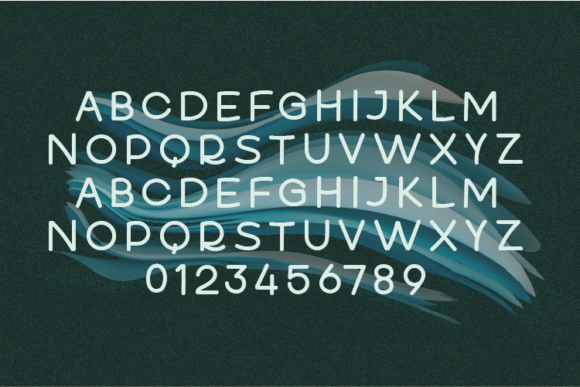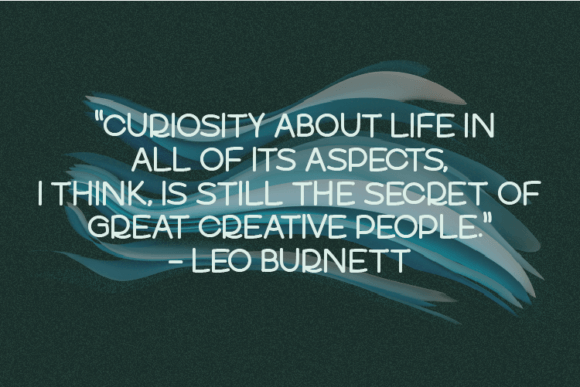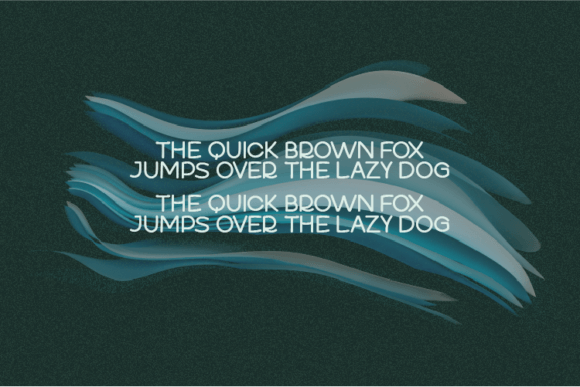
The Demetrius Font: A Unique Sans Serif for Creative Projects
I still remember the frustration of working on a design project, only to hit a roadblock when searching for the perfect font. My client wanted something fresh, yet elegant; something that would make their brand stand out. After hours of scrolling through font libraries, I stumbled upon the Demetrius font. Its unique, natural sans serif design caught my attention, and I knew I had to give it a try.
So, what makes Demetrius special? Here are a few things I love about this font:
- ✨ Unique design: The font’s natural sans serif style is made without changing a single node in each character’s indentation, making it truly one-of-a-kind.
- ✅ Versatile: Perfect for quotes, notes, tees, and any product design, Demetrius is a versatile font that can adapt to various creative projects.
- 💡 Legibility: The font’s clean lines and simple design make it easy to read, even at smaller sizes.
Of course, no font is perfect, and Demetrius has a few quirks:
- 🤔 Limited language support: As with many fonts, Demetrius may not support all languages or special characters.
- ⚠️ Font pairing: While Demetrius is a beautiful font on its own, it may require some experimentation to find the perfect pairing font for your project.
The Story Behind Demetrius
While the true story behind Demetrius remains a mystery, it’s easy to imagine a designer who wanted to create a font that was both unique and timeless. Perhaps they were inspired by ancient Greek typography, seeking to create a modern font that still honored the classics. Whatever the inspiration, Demetrius is a font that’s sure to leave a lasting impression.
| What makes Demetrius unique? | The font’s natural sans serif design is made without changing a single node in each character’s indentation, making it truly one-of-a-kind. |
| Is Demetrius suitable for body text? | While Demetrius is a beautiful font, it’s best suited for headings and titles. For body text, you may want to consider a font with more legibility and flow. |
| Does Demetrius support OpenType features? | Yes, Demetrius supports OpenType features, including ligatures and stylistic alternates, which can add more personality and style to your text. |